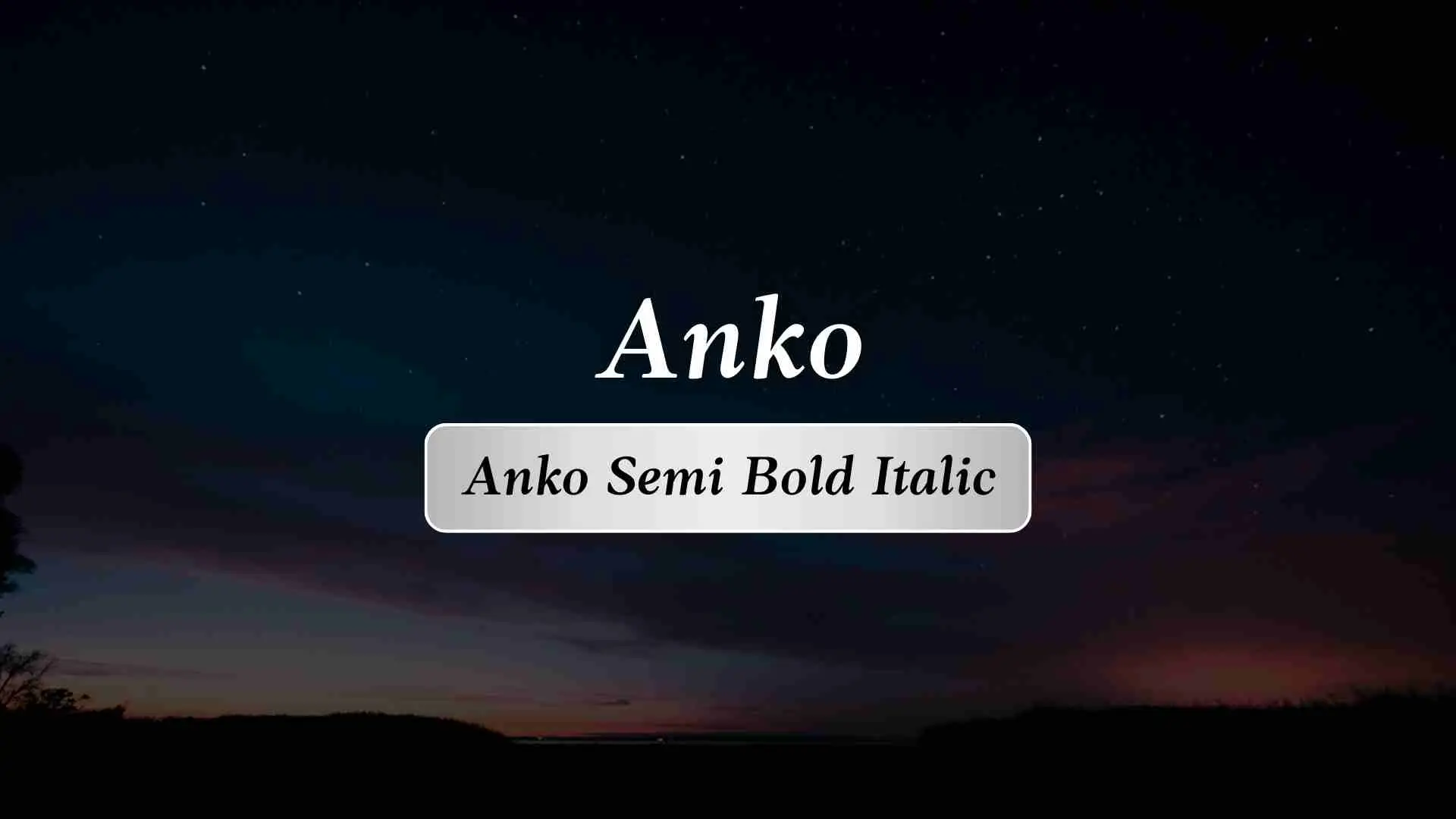
The font Anko Semi Bold Italic, designed by Eko Bimantara, falls under the Serif category & Anko font family. Its smooth, flowing letterforms make it a versatile choice for projects that require both elegance and readability. Anko is particularly well-suited for Branding, Logo, Web Design, Packaging, Body Text, Editorial Design and UI/UX Design. With its balance of simplicity and decorative appeal, this font brings a polished touch to both personal and professional designs.